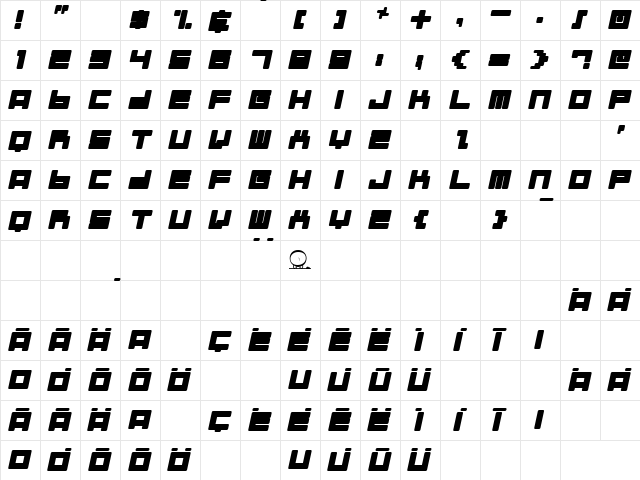
Almanaque Italic
Design Context for Almanaque Typeface
Almanaque is a composed and adaptable typeface that performs quietly and consistently across a wide range of design contexts. The slanted form adds forward momentum and visual energy.
Pro Tip: Use Almanaque for emphasis, pull quotes, and subheadings where its slanted energy can add rhythm to the layout.